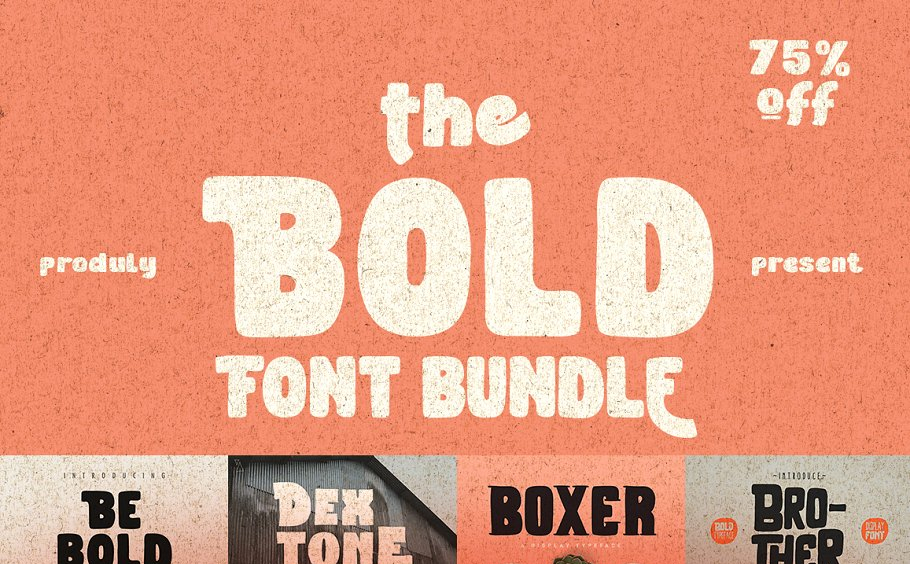
The Bold Font Bundle
The Bold Font Bundle is a carefully curated collection of striking typefaces designed to make a statement. This bundle includes a variety of styles and weights, perfect for a range of applications from branding to print media.
• Multiple font styles: Sans-serif, serif, and display fonts
• Various weights: Light, regular, bold, and extra bold
• 10 unique font families
• Character sets supporting multiple languages
• Ideal for logos, posters, and branding materials
• Great for web design and user interfaces
• Use bold weights for headlines and impactful text